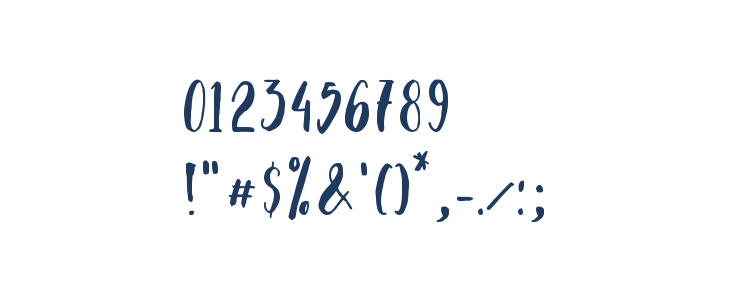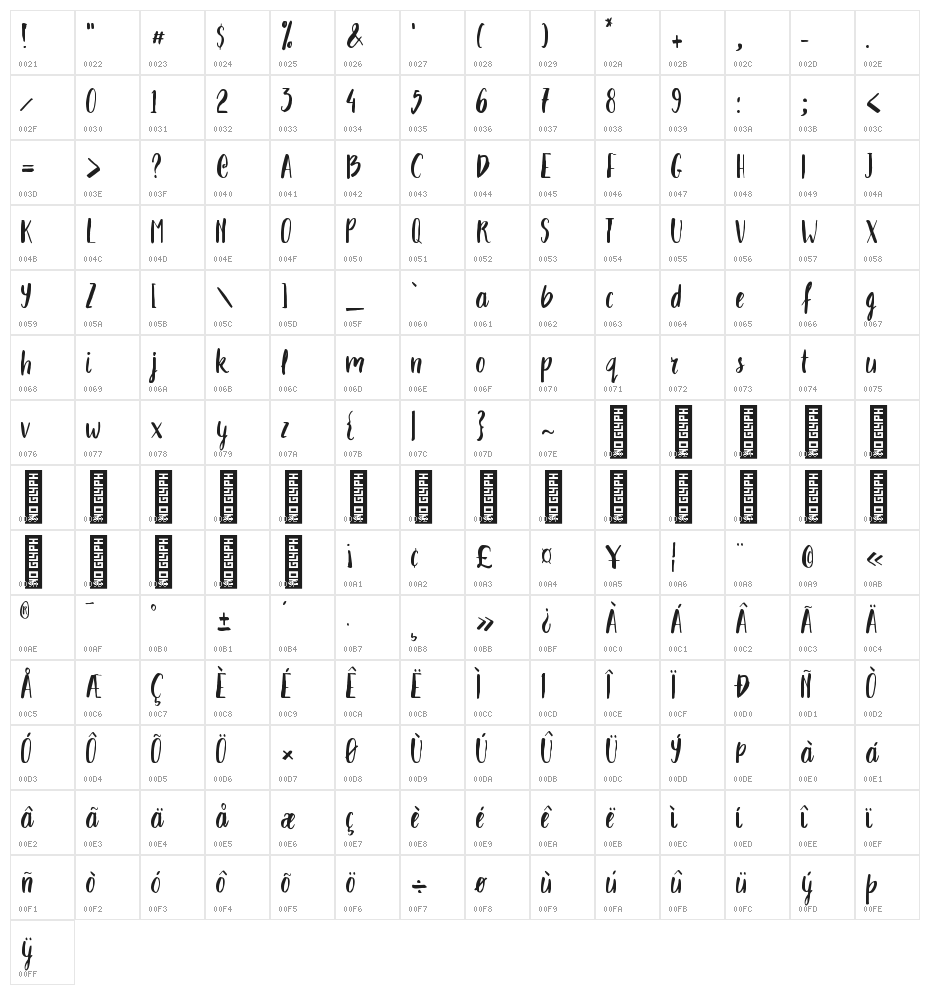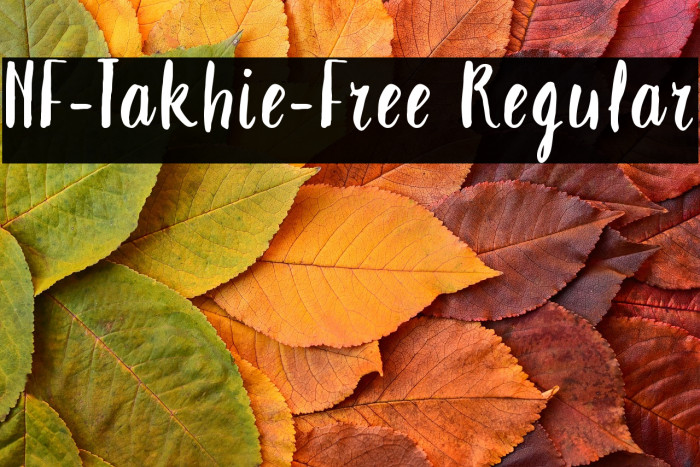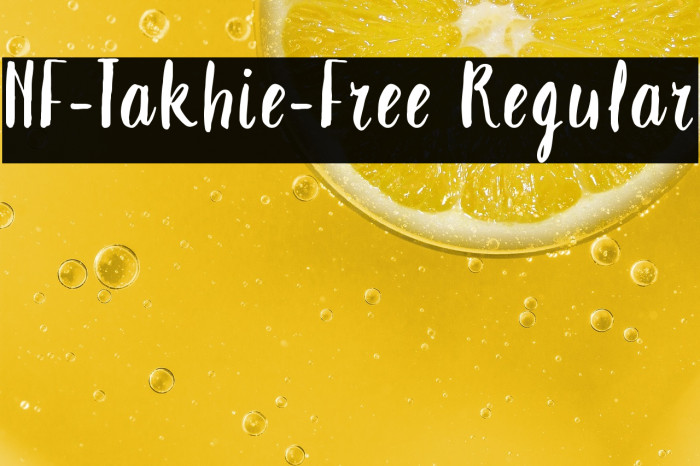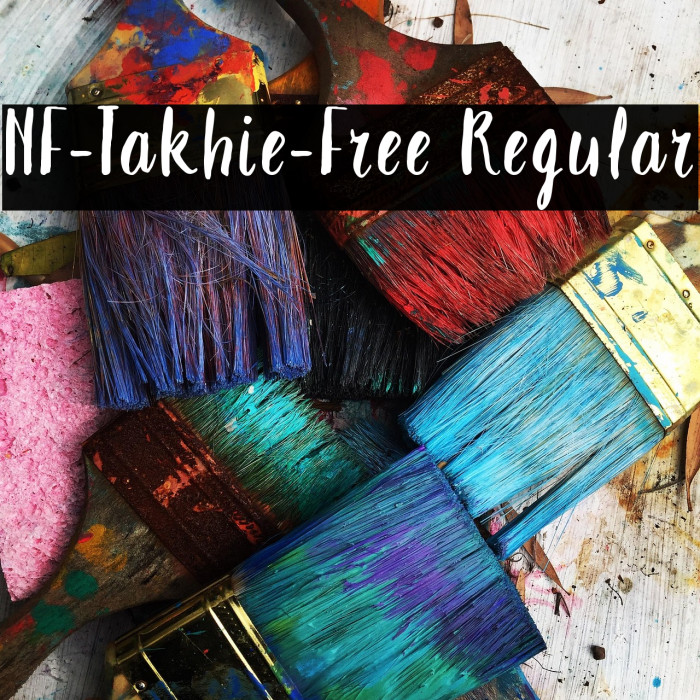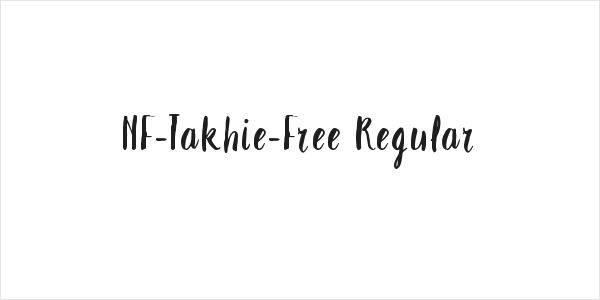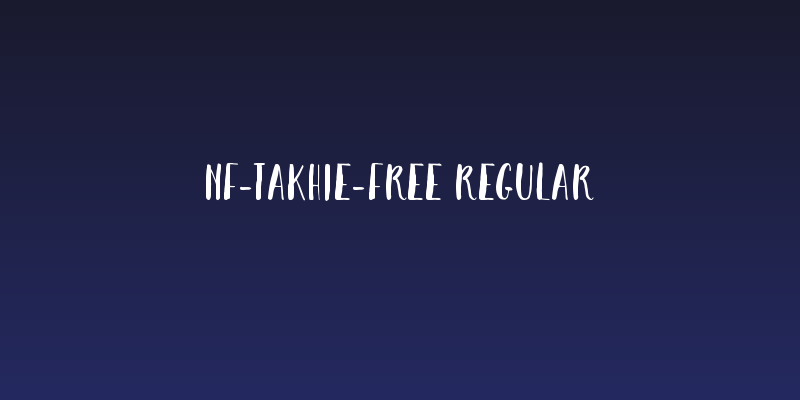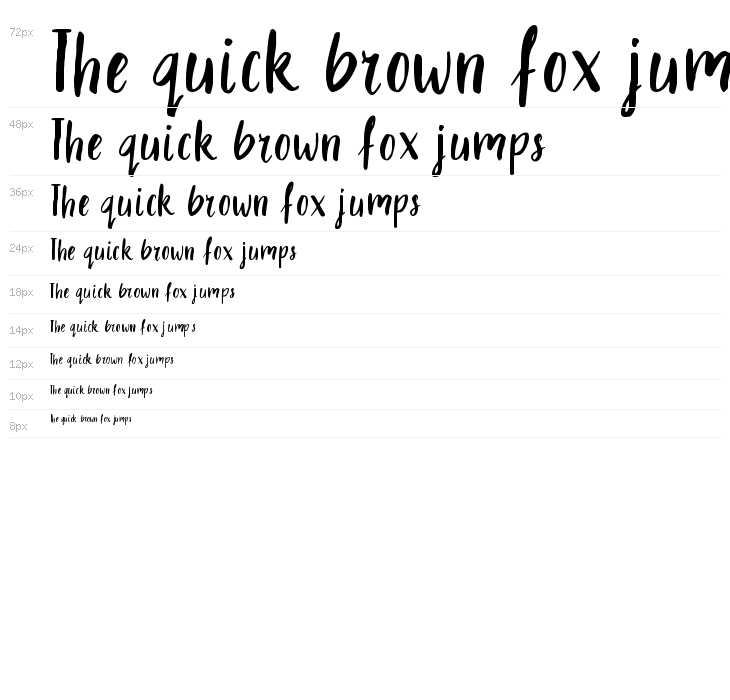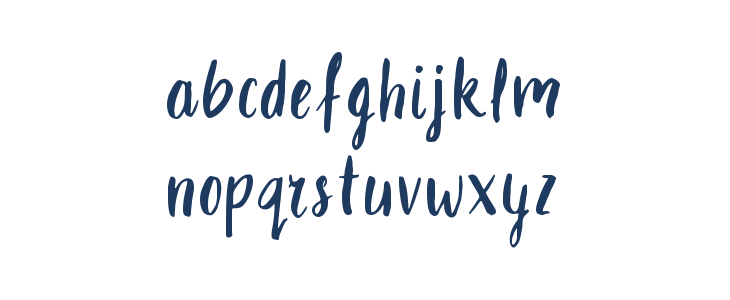
NF-Takhie-Free Regular Font
NF-Takhie-Free Regular Description
This font features a bold, expressive style with a handwritten appearance. The characters are slightly irregular, adding a personal and artistic touch. The strokes are thick and vary in width, giving the font a dynamic and lively feel. The uppercase letters are tall and commanding, while the lowercase letters maintain a consistent flow. Numbers and special characters are designed to match the playful and creative aesthetic. This font is perfect for projects that require a personal, informal, and artistic vibe.
| Proposed Projects | Ideal for greeting cards, posters, social media graphics, and creative branding. |